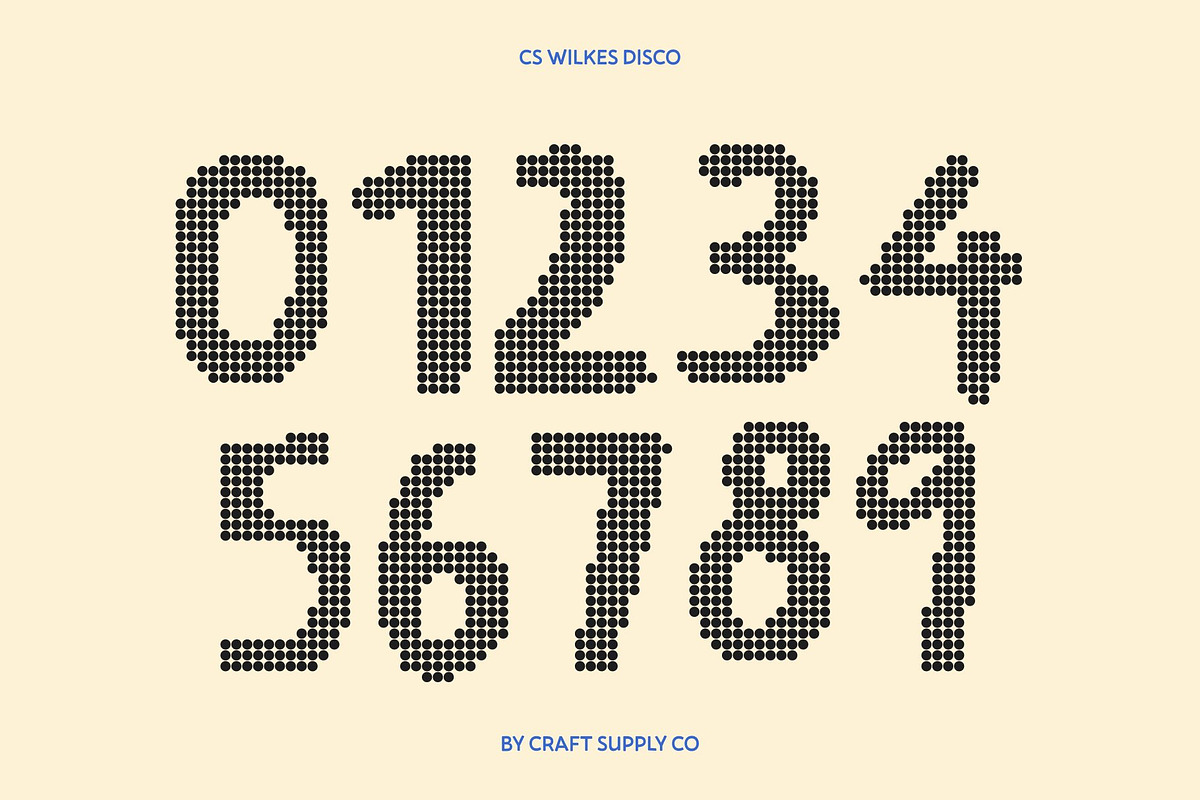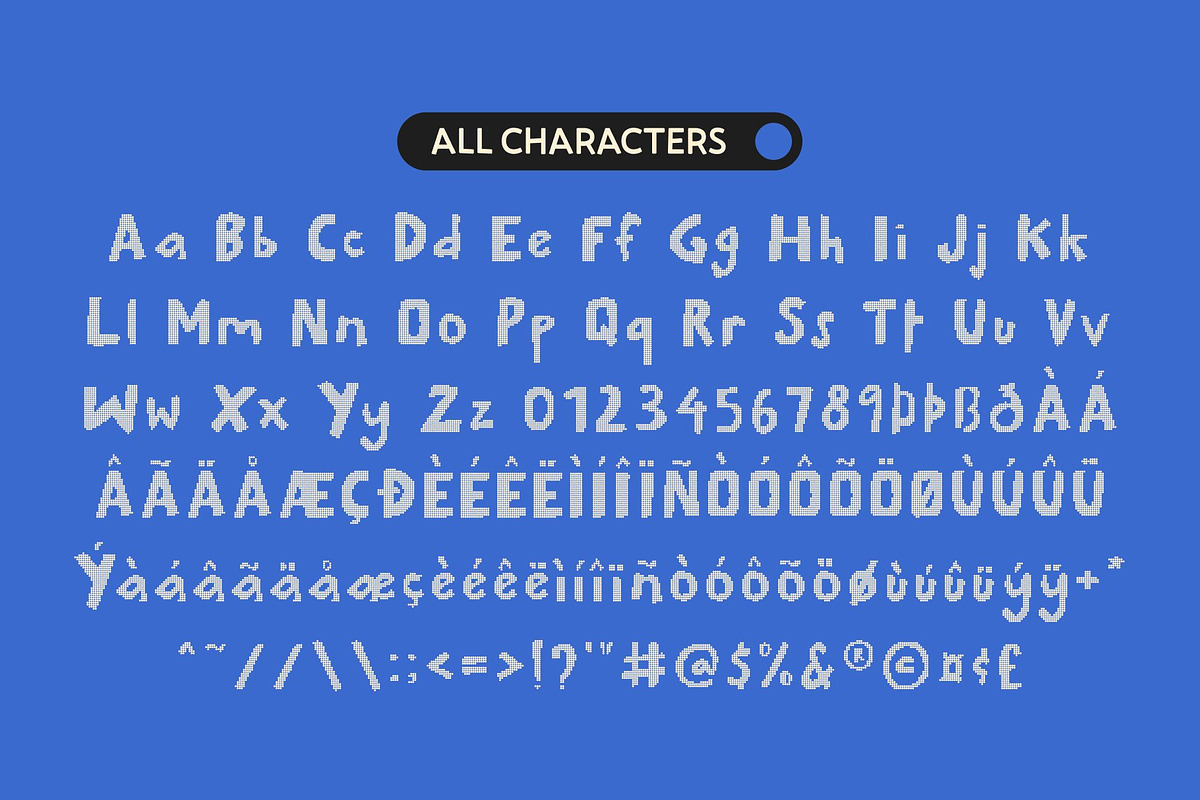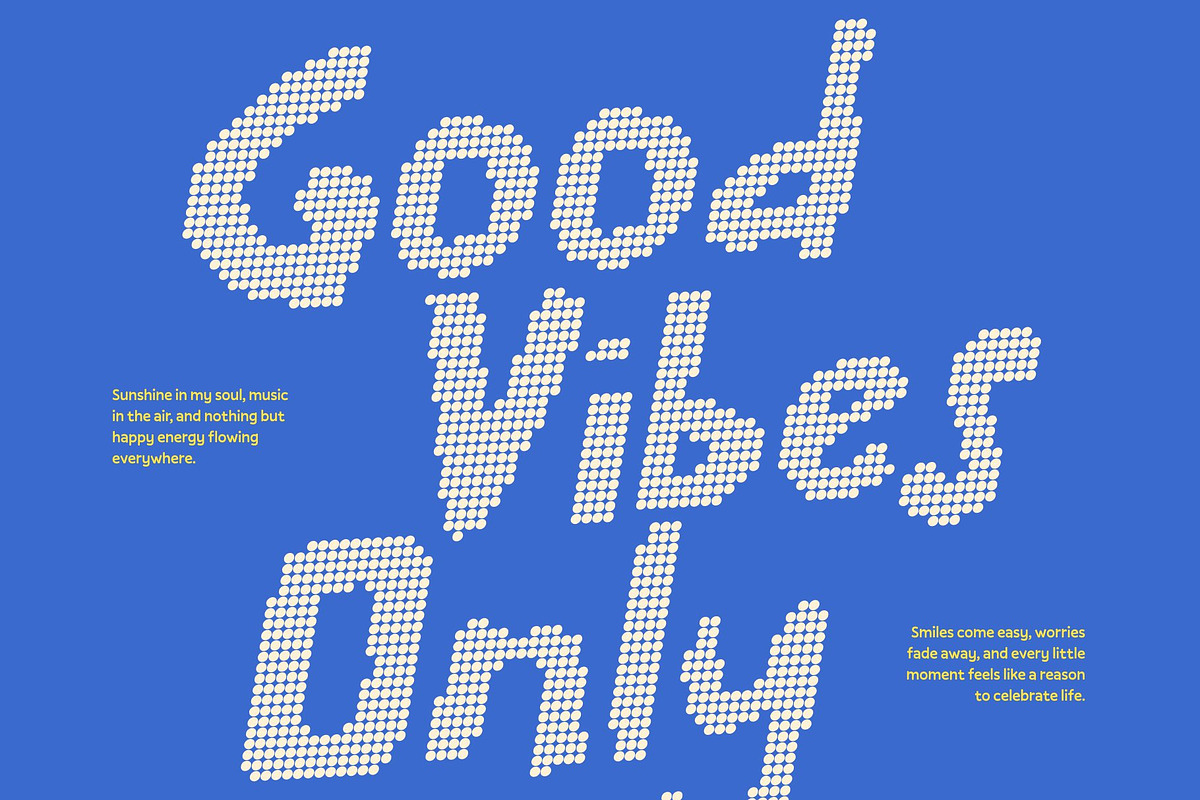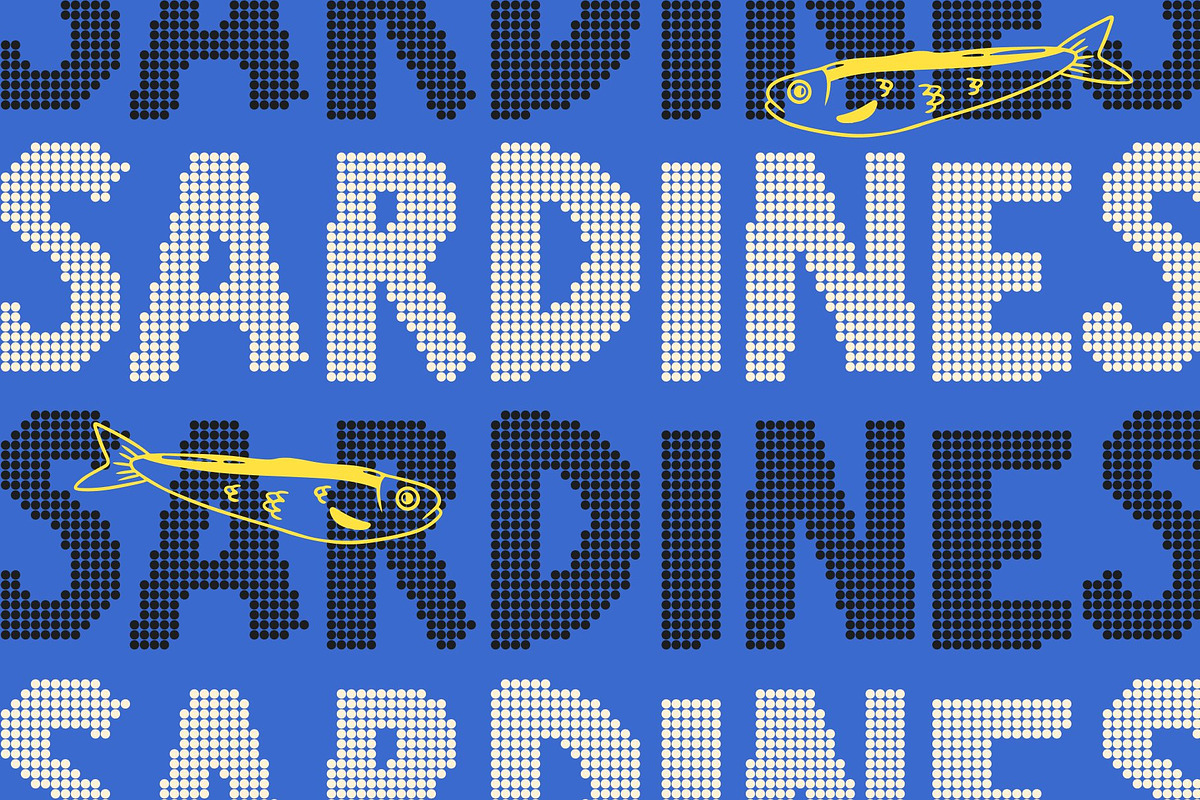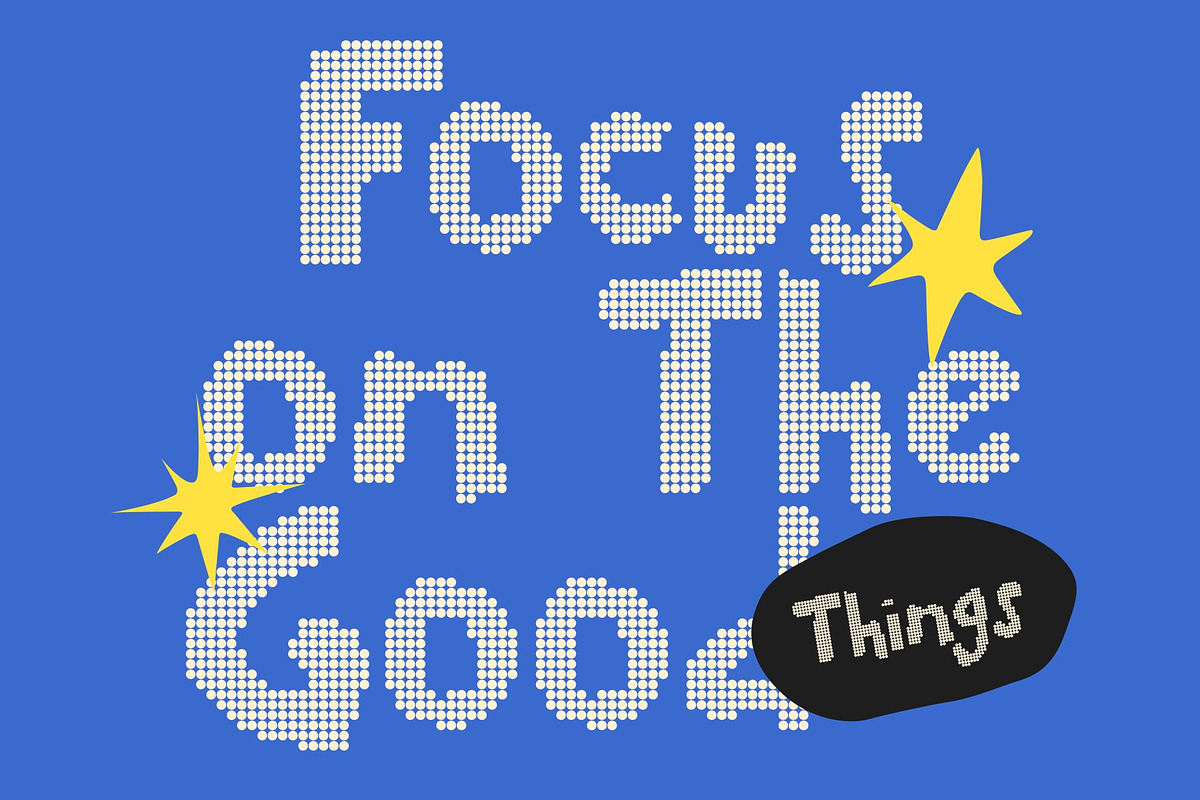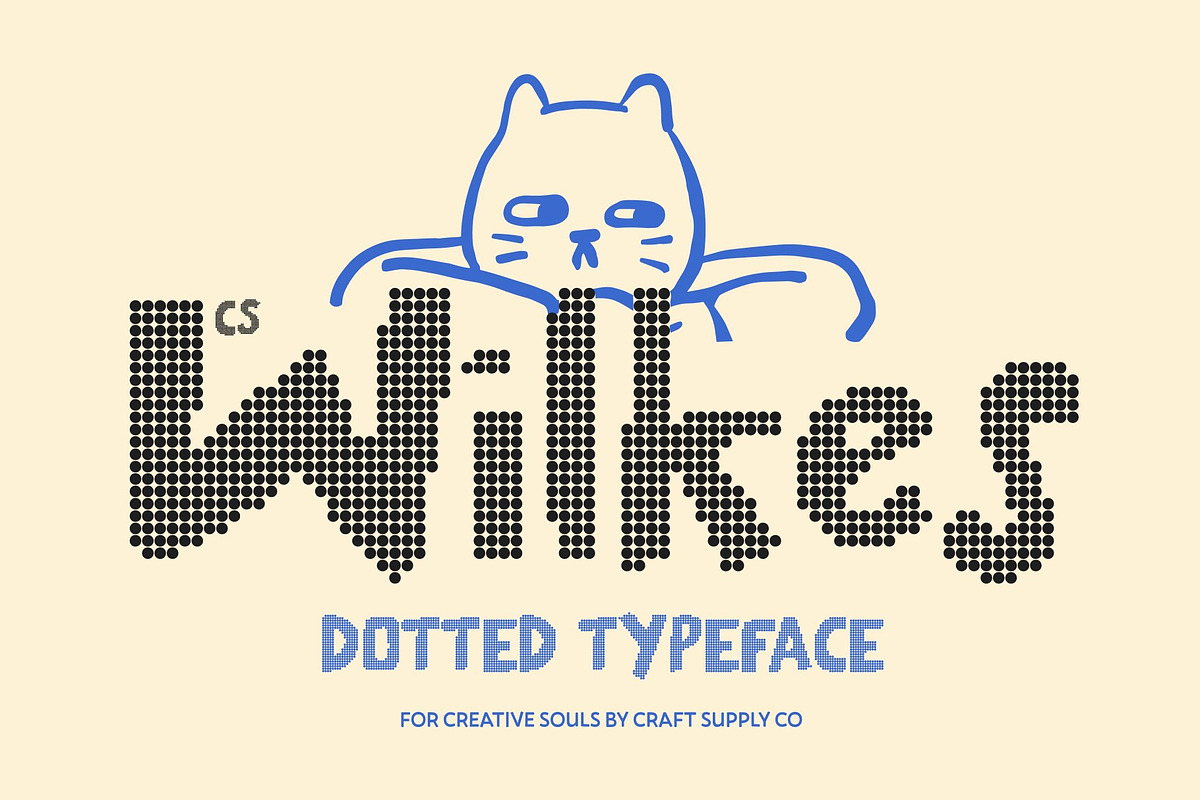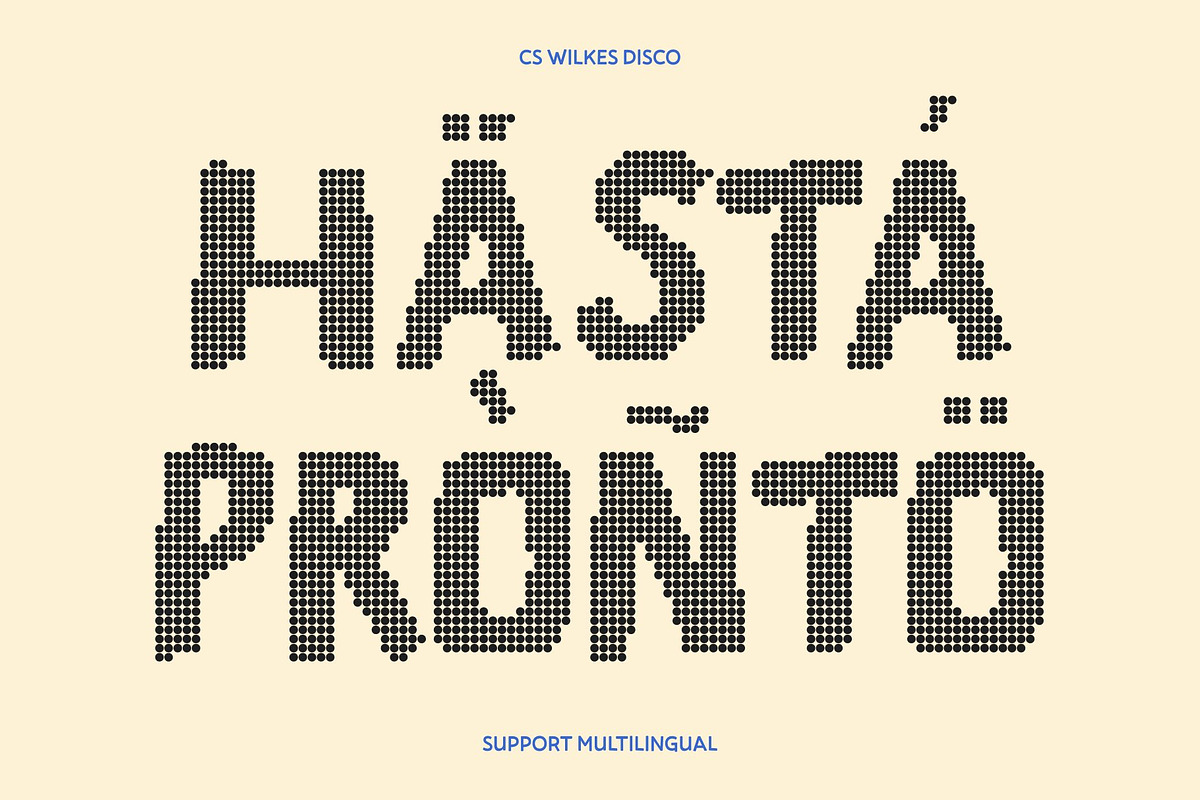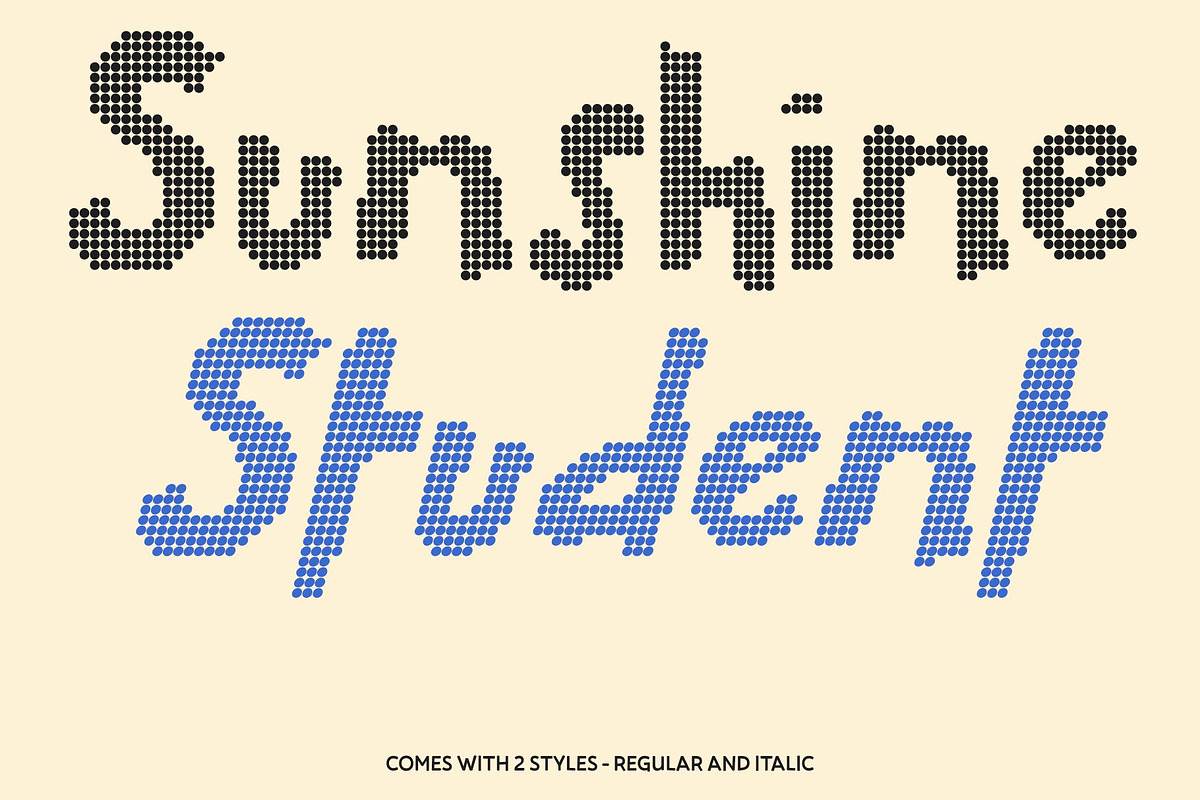
CS Wilkes Disco
CS Wilkes Disco – Fun Display Font with Sparkling Quirky Charm
Playful Shapes with Disco Personality This fun display font brings cheerful energy to life through quirky, cute letterforms enhanced with a lively disco dot texture. The playful shapes feel friendly and imaginative, while the dotted detailing adds a festive sparkle that makes every word feel vibrant and full of joy.
Expressive Letterforms with Warm Character Each character is crafted with soft curves and charming irregularities, creating a hand-drawn personality that feels approachable and inviting. The disco-inspired texture adds visual excitement without overwhelming readability, making the font both expressive and practical.
Perfect for Youthful and Creative Visuals From greeting cards and kids’ branding to packaging, posters, and social media graphics, this font delivers a delightful burst of creativity. Its playful rhythm and friendly style make designs feel lively, modern, and full of personality.
Versatile and Joyfully Eye-Catching Blending whimsical charm with modern clarity, this font adapts beautifully across fun and expressive branding projects. Whether used for titles, logos, or headlines, it stands out with a warm, inclusive vibe and a sparkle of celebratory energy.